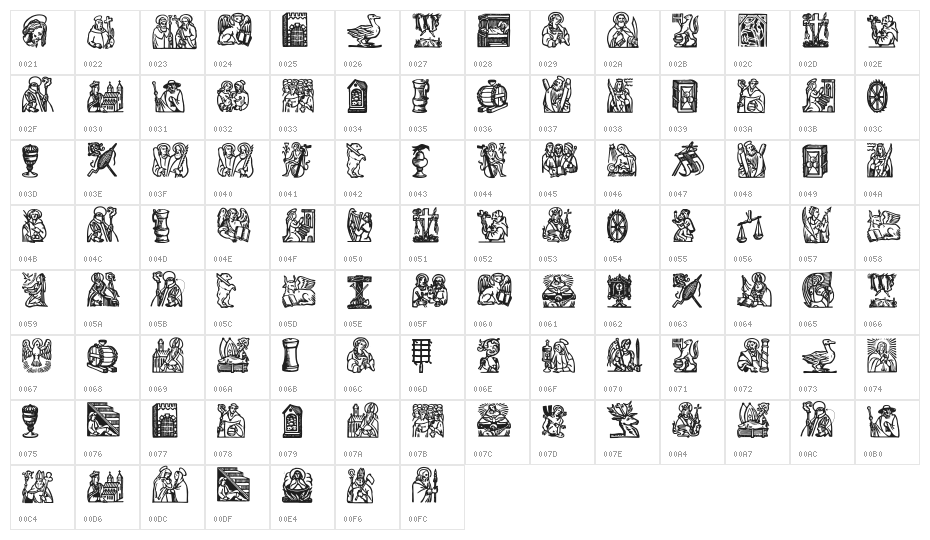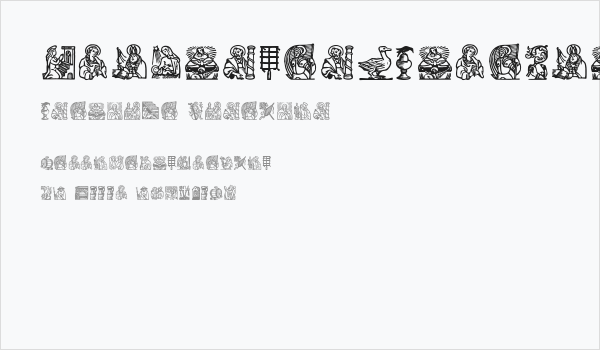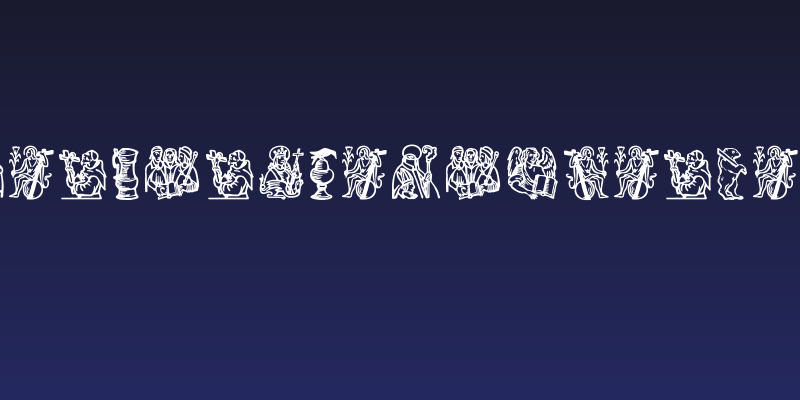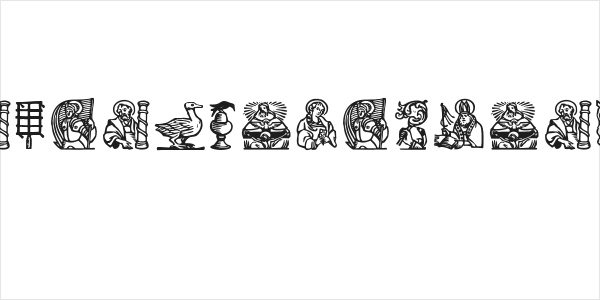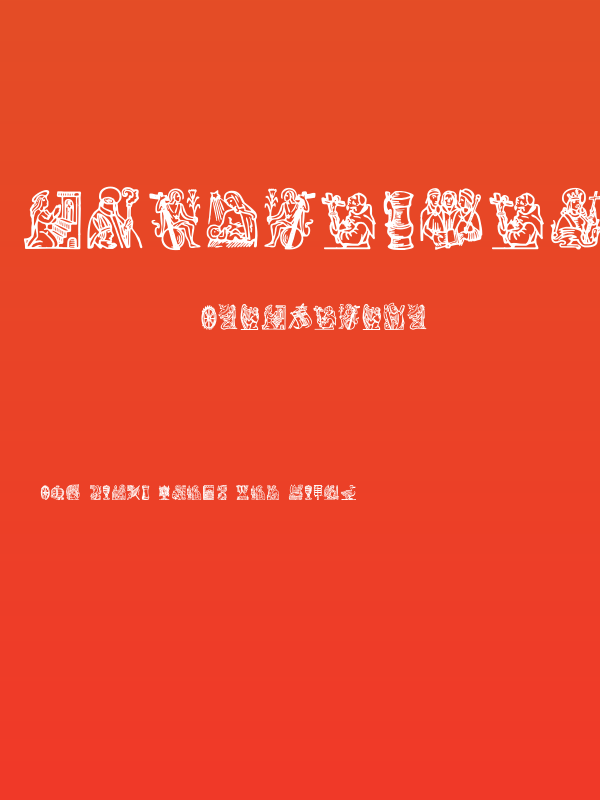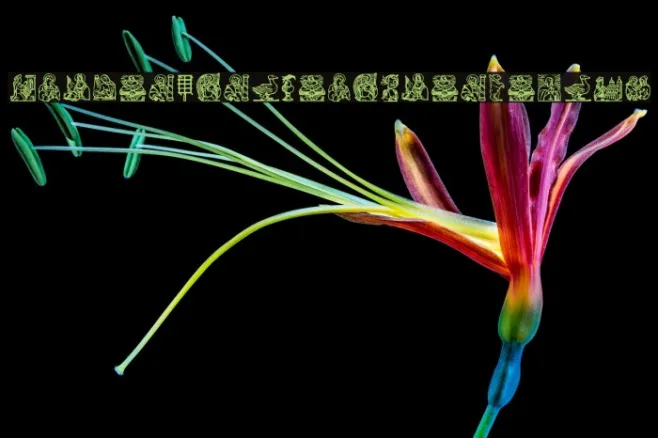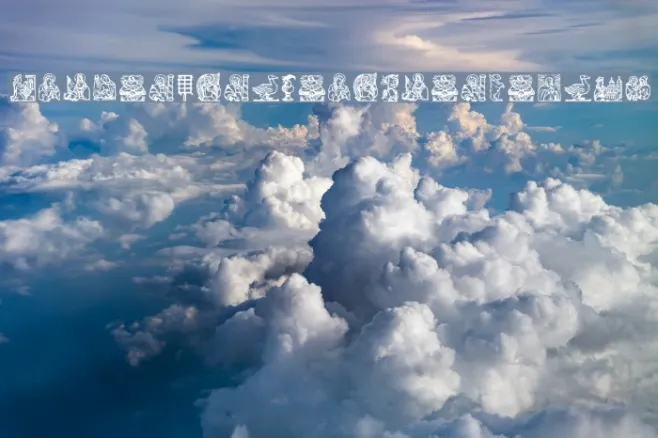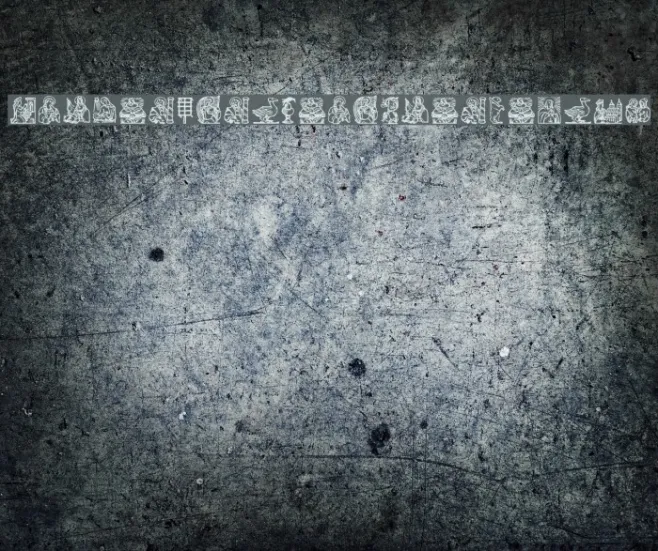
OldFarmersCalendarBats02 Font
OldFarmersCalendarBats02 Description
A decorative dingbat font featuring intricate, high-contrast black-and-white illustrations inspired by vintage woodcuts and old almanac imagery. Each glyph is a unique pictorial symbol, often depicting historical, agricultural, or folkloric scenes and objects.
| Overall Style | Vintage, Decorative |
| Use Case | Decorative elements, Illustrative accents, Thematic dividers |
| Proposed Projects | Book covers, historical posters, event invitations, themed calendars, educational materials, decorative borders. |